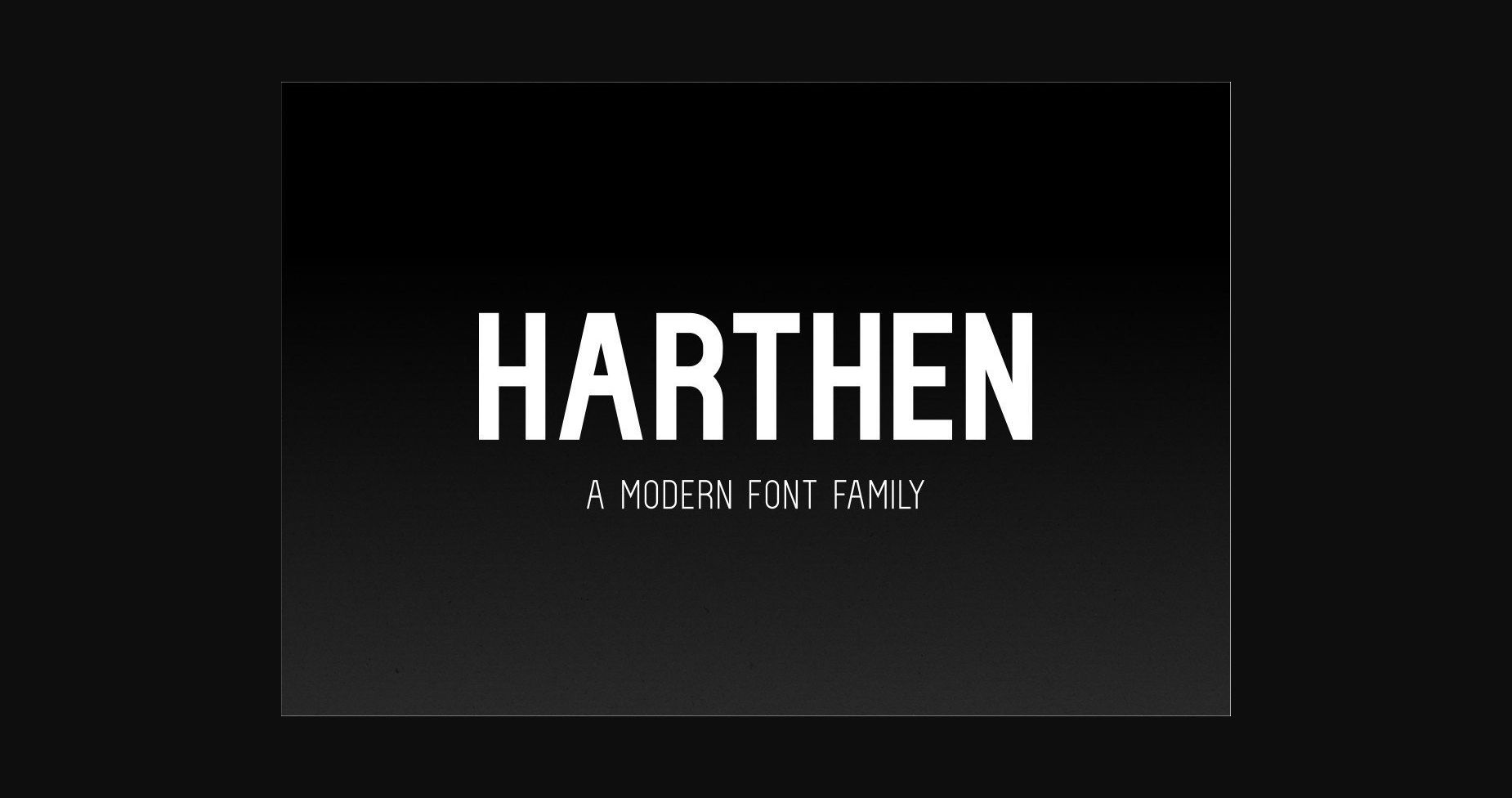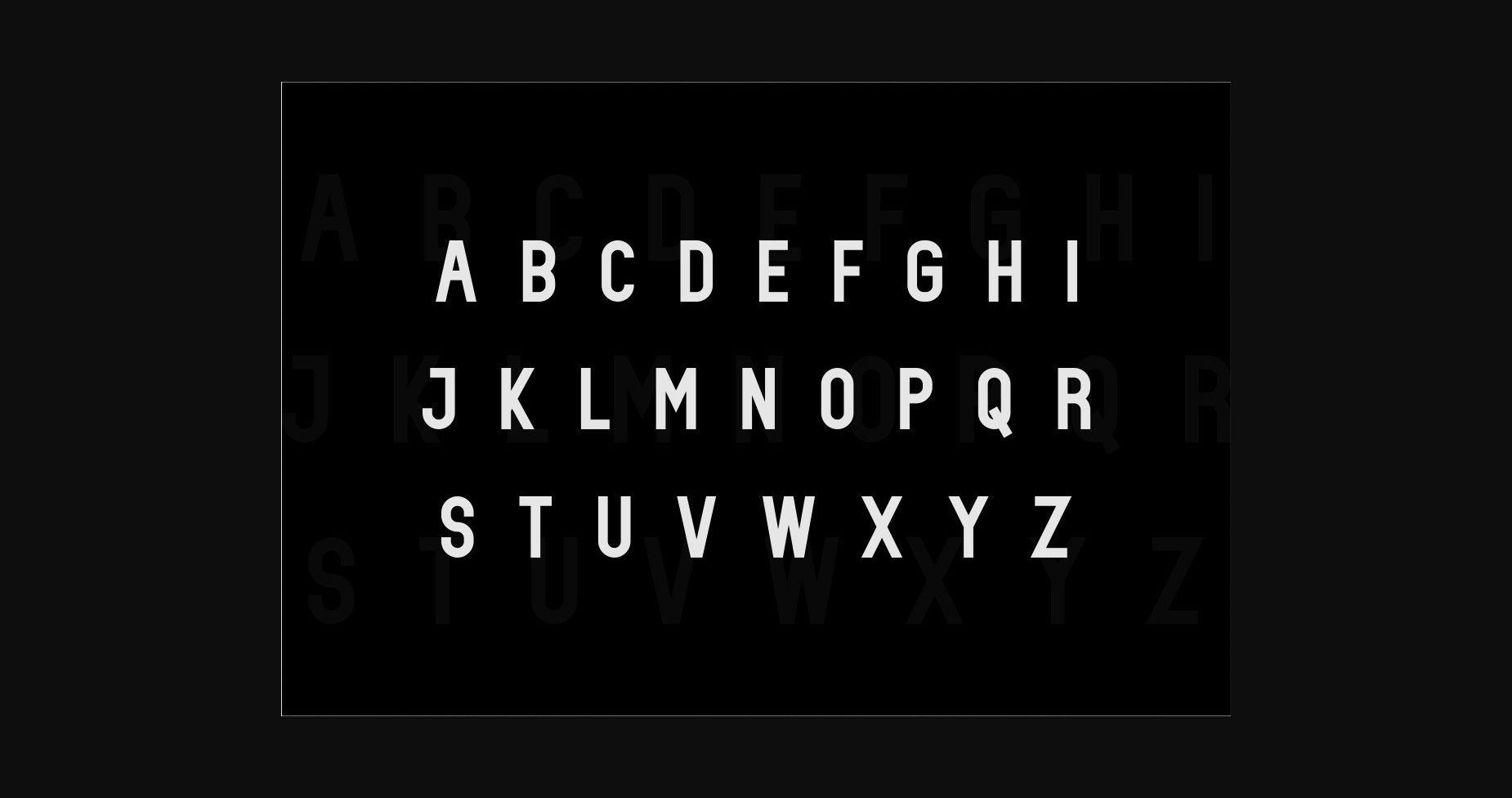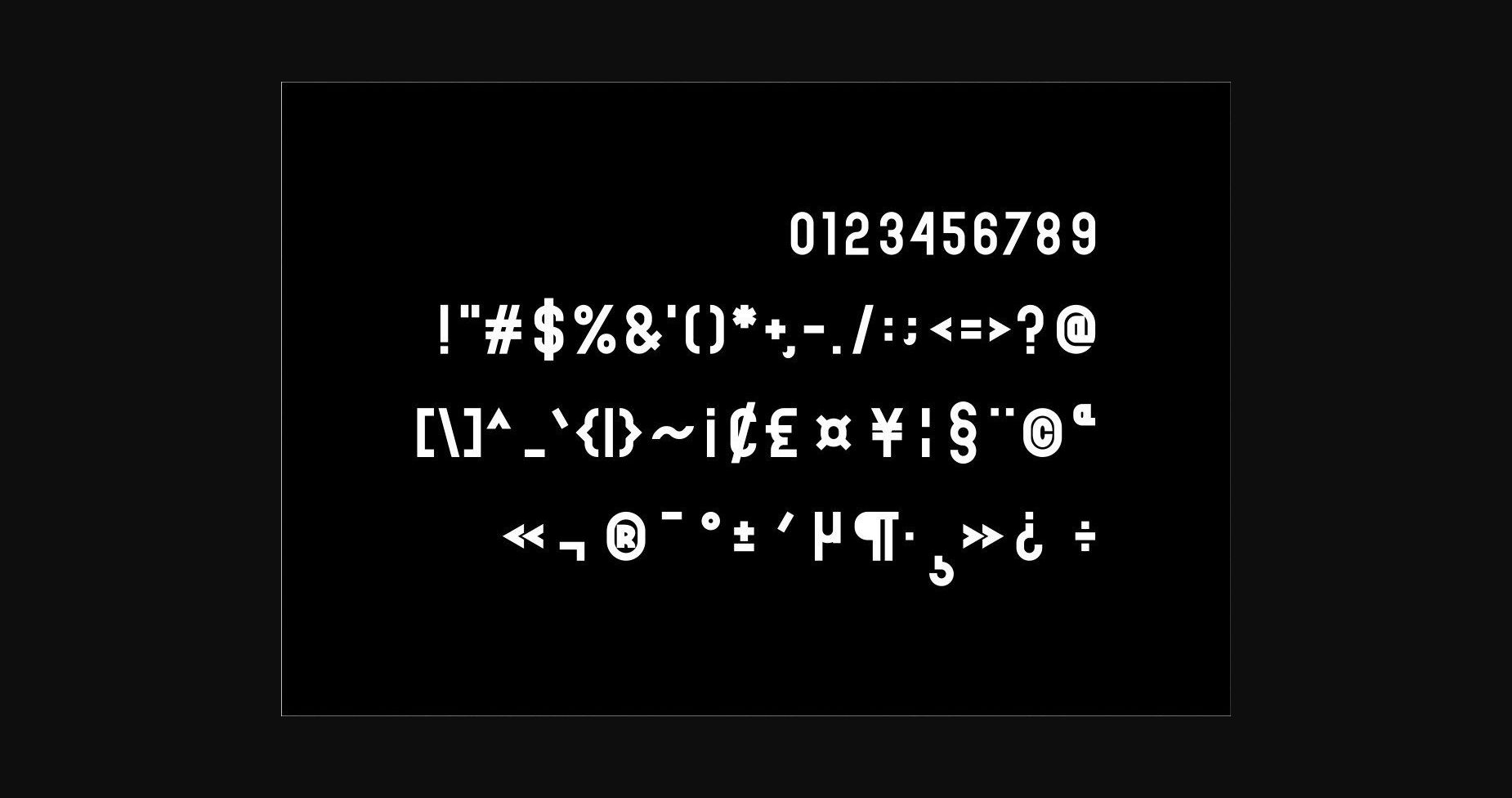
About Harthen Font
The Harthen font is a modern sans serif font family. It is elegant, classy, modern, stylish, contemporary, and easy to use. The Harthen Font is the right choice for fashion, banners, logos, food menus, brand names, branding, brands, quotes, album covers, and other projects. The Harthen font is here to take your designs to the next level.